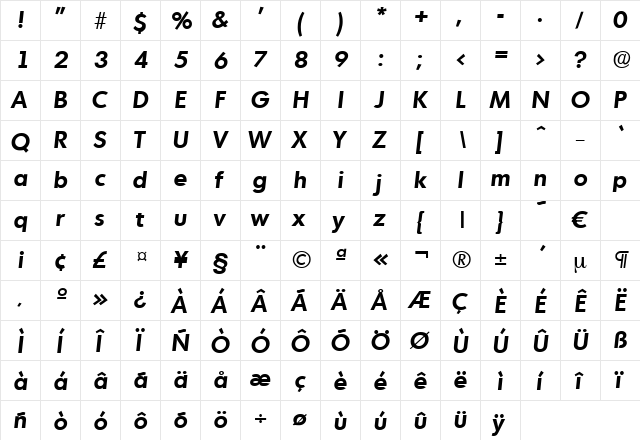
Montreal-DemiBoldIta Regular Font Preview
Montreal-DemiBoldIta Regular
Design Context for Montreal-DemiBoldIta Typeface
Montreal-DemiBoldIta is a composed and adaptable typeface that performs quietly and consistently across a wide range of design contexts. The heavy weight commands attention and anchors typographic hierarchies.